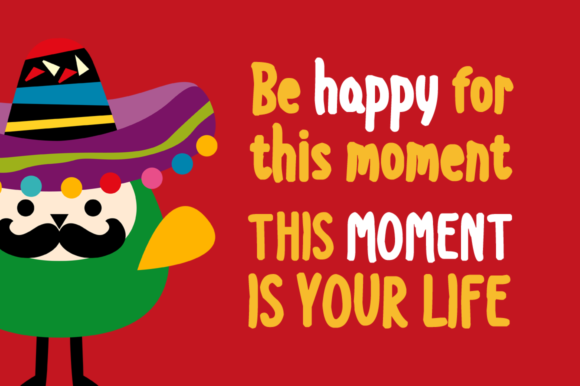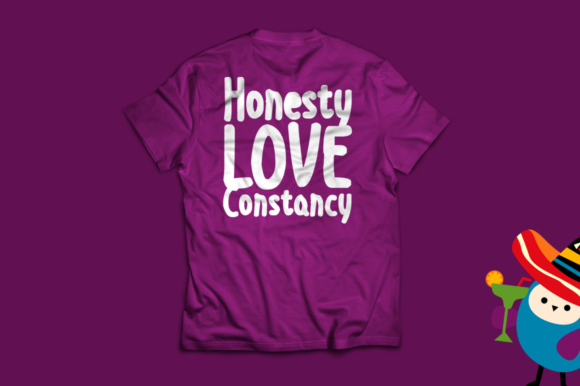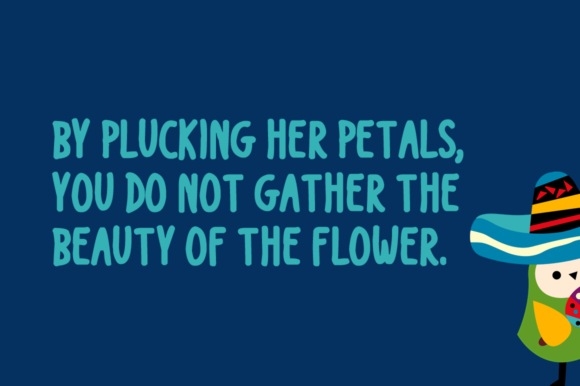
Introduction to Dockmaster Font
Do you remember that moment when you finally find the perfect font to bring your creative project to life? The moment when everything falls into place and your design just clicks? For designers, this feeling is like a breath of fresh air, and it’s exactly what the Dockmaster Font promises to deliver.
This high-quality, bold handwritten font is a game-changer for anyone looking to add a personal touch to their designs. Whether you’re creating a logo, flyer, or website header, the Dockmaster Font is perfectly suited to make your design stand out from the crowd.
Key Features of Dockmaster Font
- High-quality, unique design suitable for creative projects, with a modern and sleek aesthetic.
- Designed to be highly legible, with clear and crisp typography that’s perfect for use in digital and print media.
- Features a clean and minimalist design, making it an ideal choice for logos, branding, and other design applications.
Honest Review: Dockmaster Font
I recently stumbled upon the Dockmaster Font while searching for a high quality design resource for a creative project. The font has a unique, industrial feel that I thought would be perfect for a nautical-themed design. The best part? It’s available for free download!
The font has a transparent background, making it easy to use with any design element. I love how versatile it is and how it can be used in a variety of contexts. ✨ The font’s bold lines and crisp typography make it perfect for headings and titles.
Here are some of the features I like about the Dockmaster Font:
- Unique, industrial design
- High quality typography
However, I do have a few concerns about the font’s limitations. ⚠️ The font is only available in a single weight, which might limit its use in certain design contexts. Additionally, the font may not be suitable for small text sizes due to its bold lines.
Overall, I’m impressed with the Dockmaster Font and would definitely recommend it to designers looking for a high quality, free design resource. Just be aware of its limitations and use it accordingly.
Tips for Getting the Most Out of Dockmaster Font
The Dockmaster Font is a popular design resource for a variety of projects, including logos, branding materials, and web design. Its high-quality design and transparent background make it easy to use in a range of creative projects, and it’s available for free download from many online resources.
Alternatives to Dockmaster Font